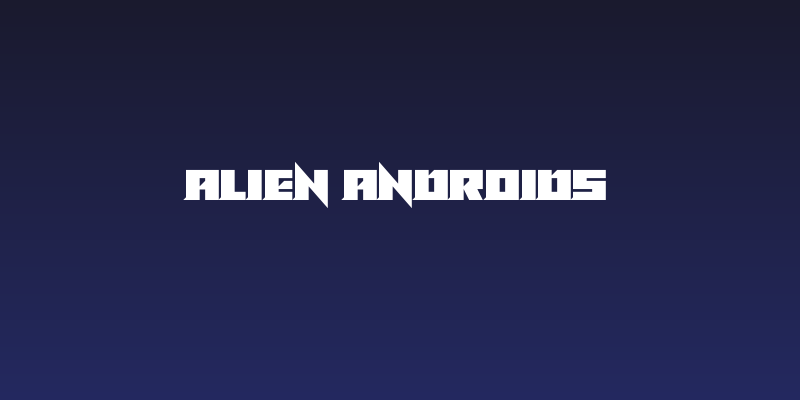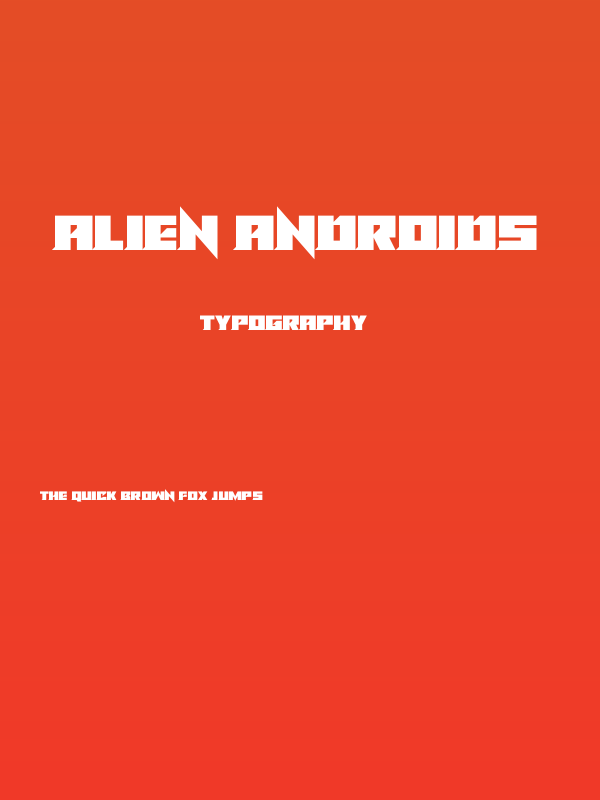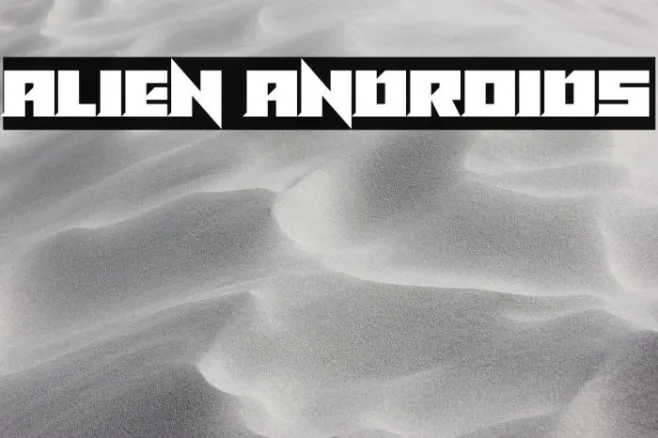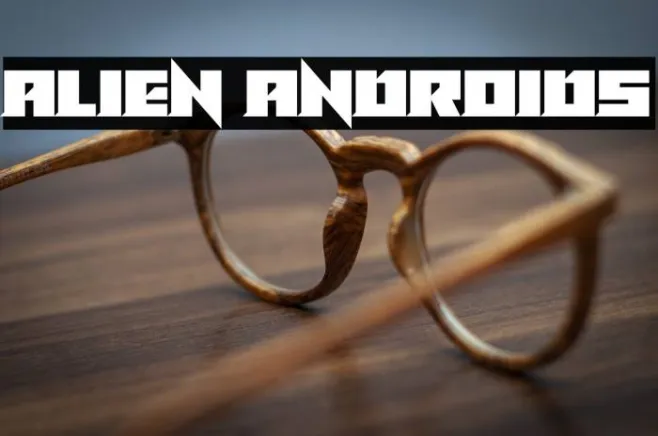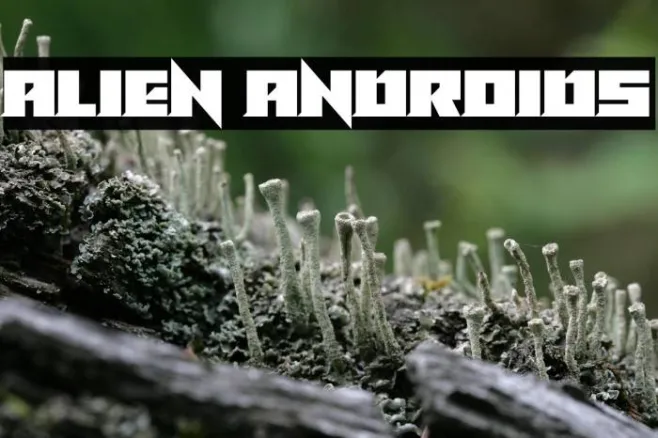
Alien Androids Font
Alien Androids Description
This font features a bold, futuristic design with sharp, angular edges and a geometric structure. The uppercase letters are particularly striking, with a blocky appearance that suggests a sense of strength and modernity. The lowercase letters maintain this boldness, ensuring consistency across the typeface. Numbers and special characters are equally robust, making them suitable for attention-grabbing designs. The overall style is reminiscent of science fiction themes, with a hint of industrial influence. This font is ideal for projects that require a strong visual impact, such as posters, video game titles, or tech-related branding.
| Overall Style | Futuristic, Industrial |
| Proposed Projects | Ideal for sci-fi themed posters, video game titles, tech branding, and futuristic designs. |